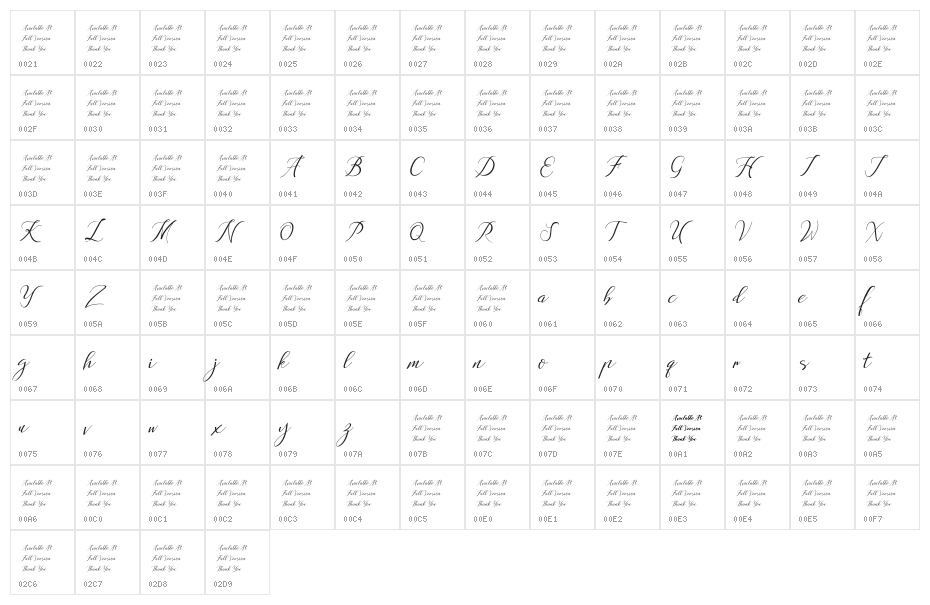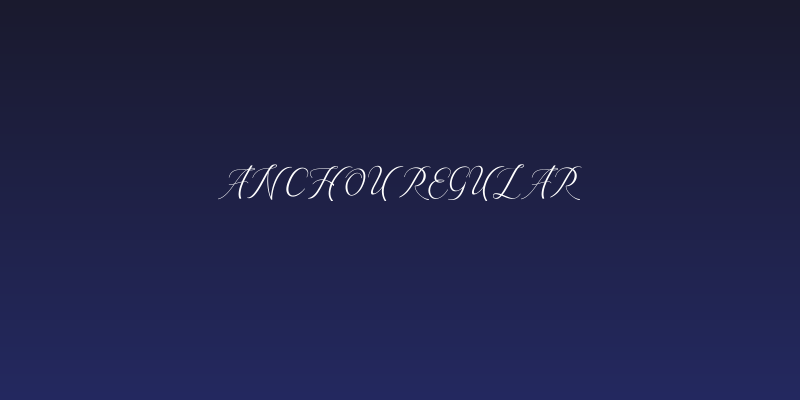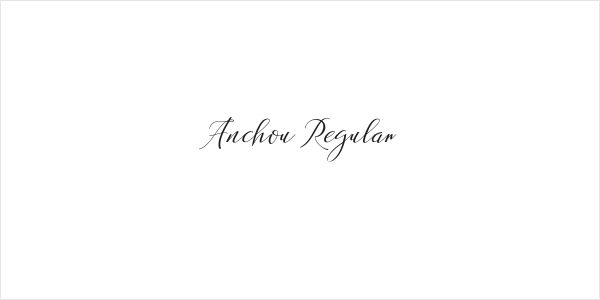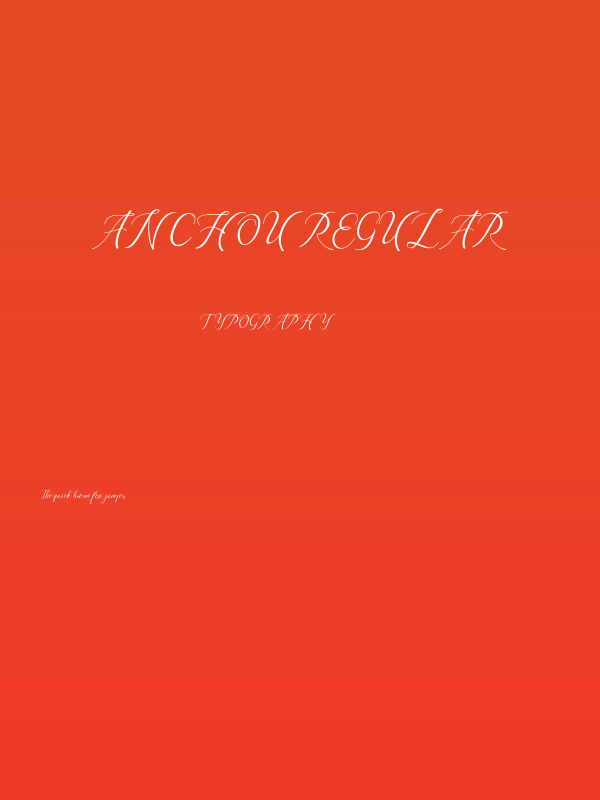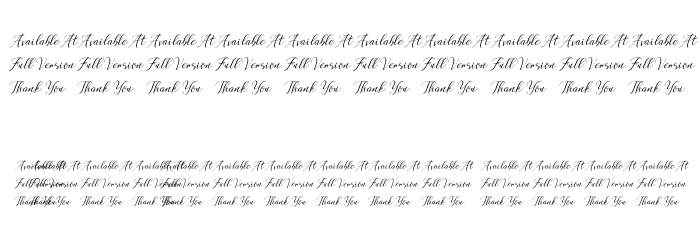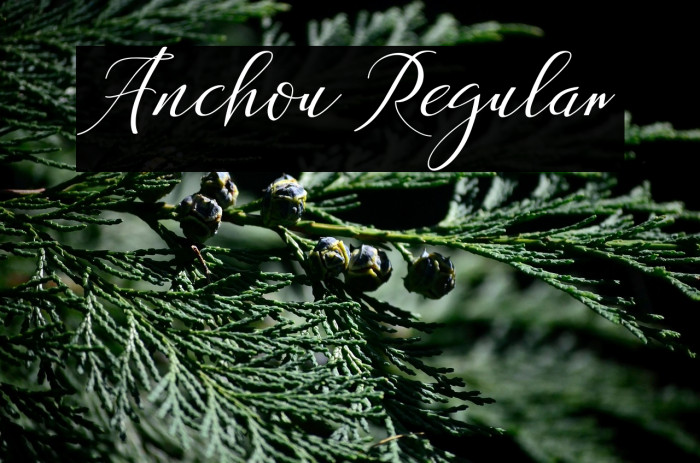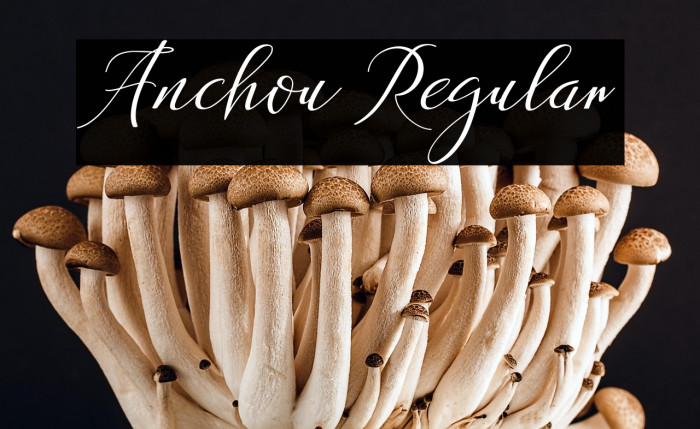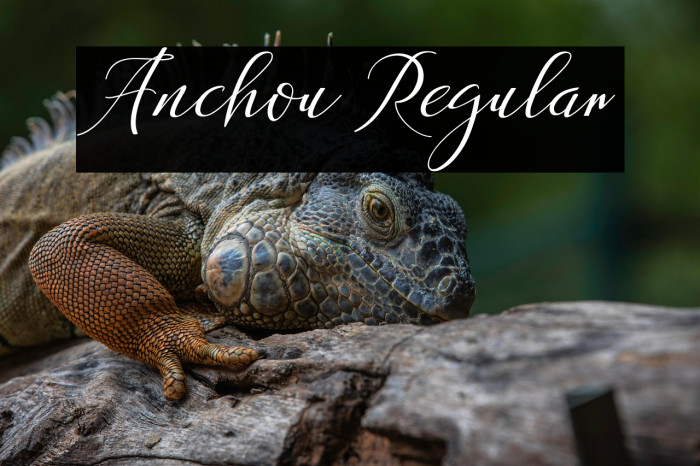
Anchou Regular Font
Anchou Regular Description
This font exudes elegance and sophistication with its flowing, cursive style. The letters are intricately designed, featuring smooth curves and delicate strokes that give it a refined and graceful appearance. The uppercase letters are particularly ornate, with sweeping lines and flourishes that add a touch of grandeur. The lowercase letters maintain a consistent style, offering a harmonious blend of formality and fluidity. This font is ideal for projects that require a touch of class and elegance, such as wedding invitations, formal event programs, or luxury branding. Its artistic flair makes it suitable for decorative purposes, while its readability ensures it remains functional.
| Use Case | Headlines, Invitations, Branding |
| Proposed Projects | Wedding invitations, luxury branding, formal event programs, decorative projects. |